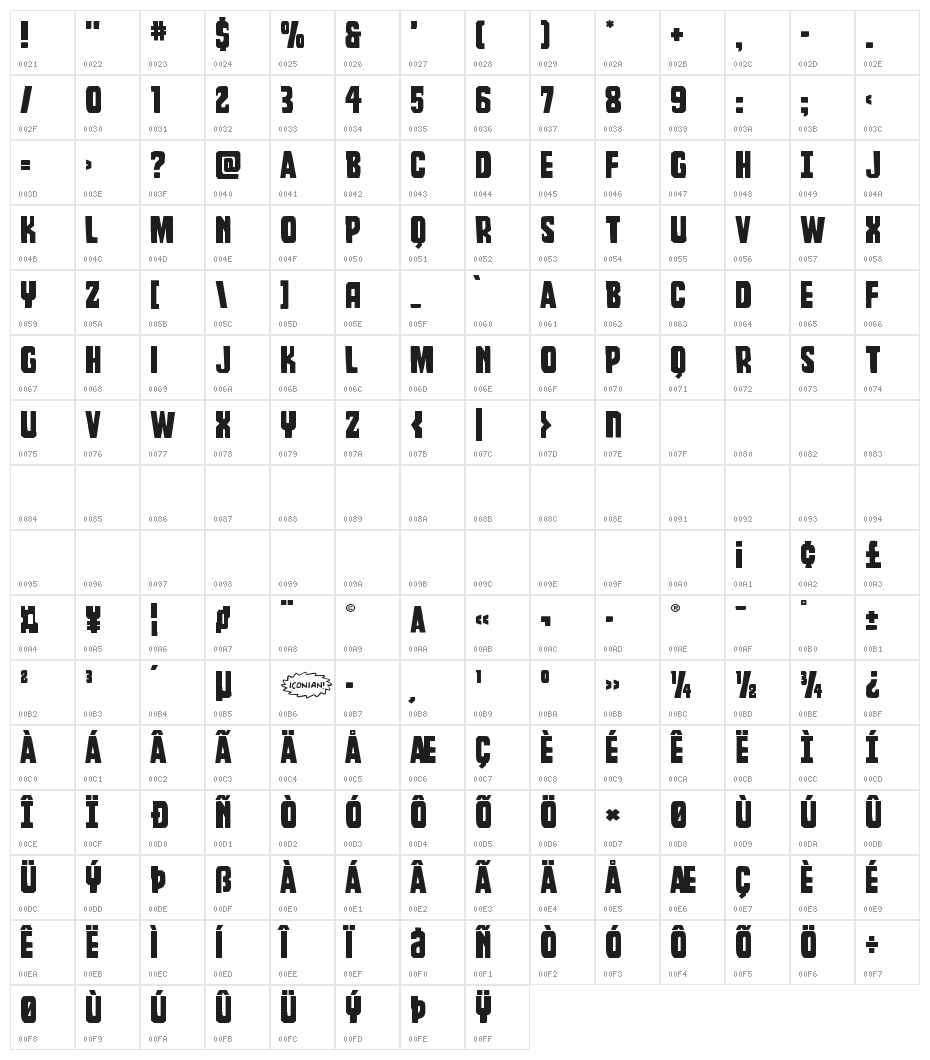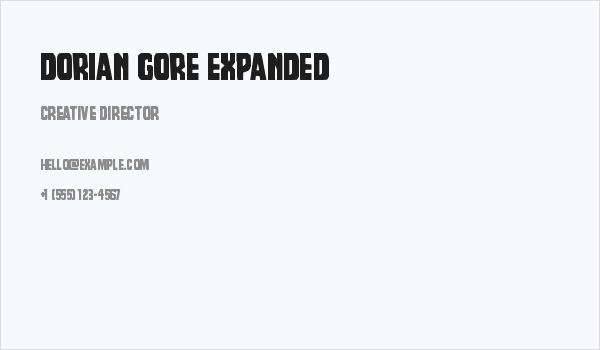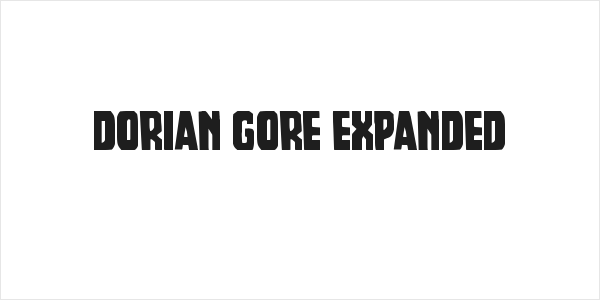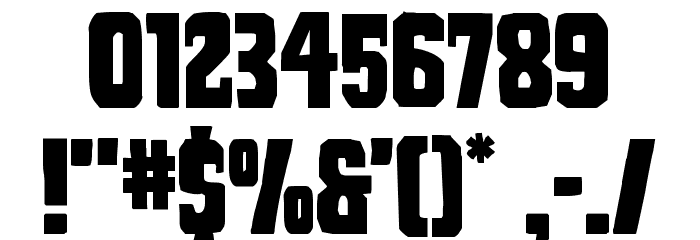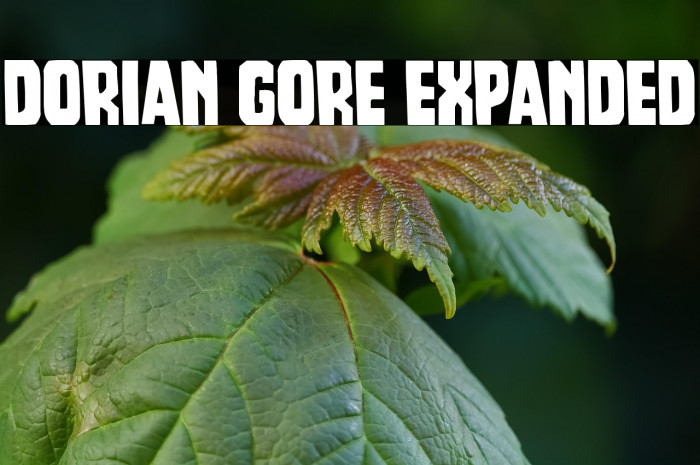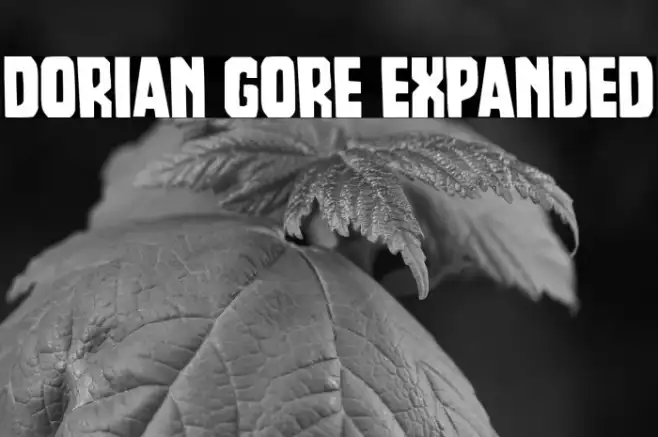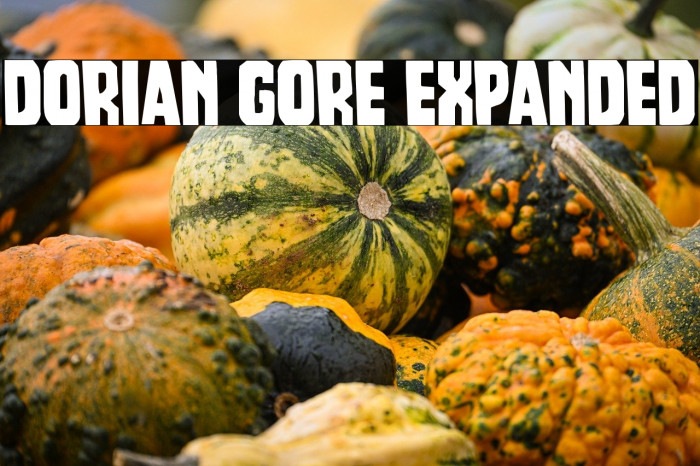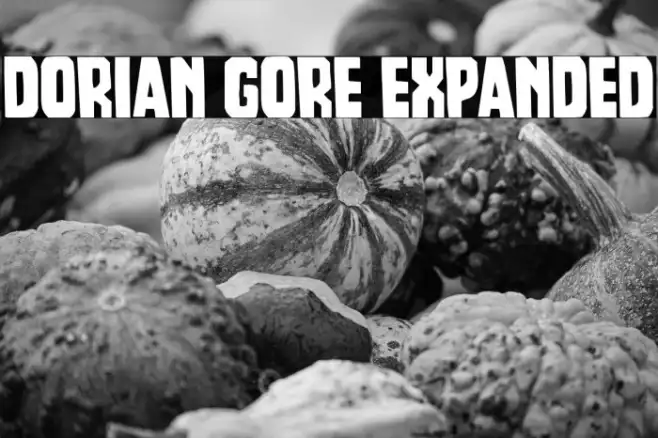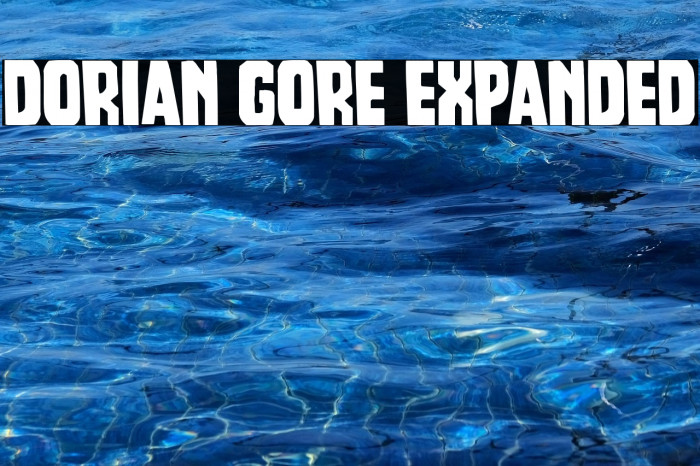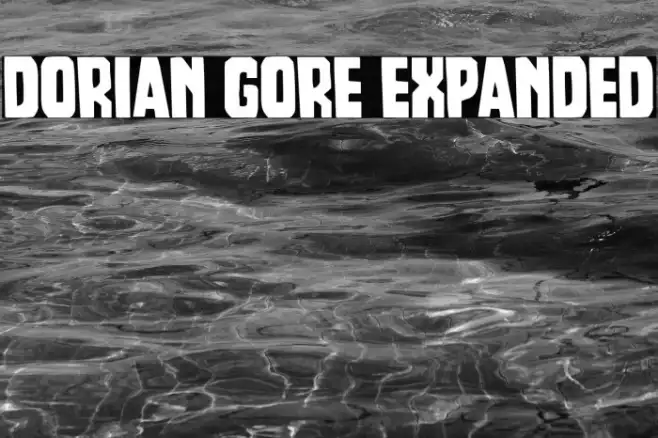
Dorian Gore Expanded Font
Dorian Gore Expanded Description
This font features a bold and striking design with a strong presence. The characters are blocky and robust, with a slightly condensed appearance that gives them a powerful and impactful look. The uppercase and lowercase letters maintain a consistent style, with sharp edges and a uniform thickness throughout. The numbers and special characters are equally bold, ensuring they stand out in any design. The overall aesthetic is modern and assertive, making it suitable for projects that require a strong visual impact.
| Proposed Projects | Ideal for posters, headlines, branding, and any project needing a strong visual statement. |